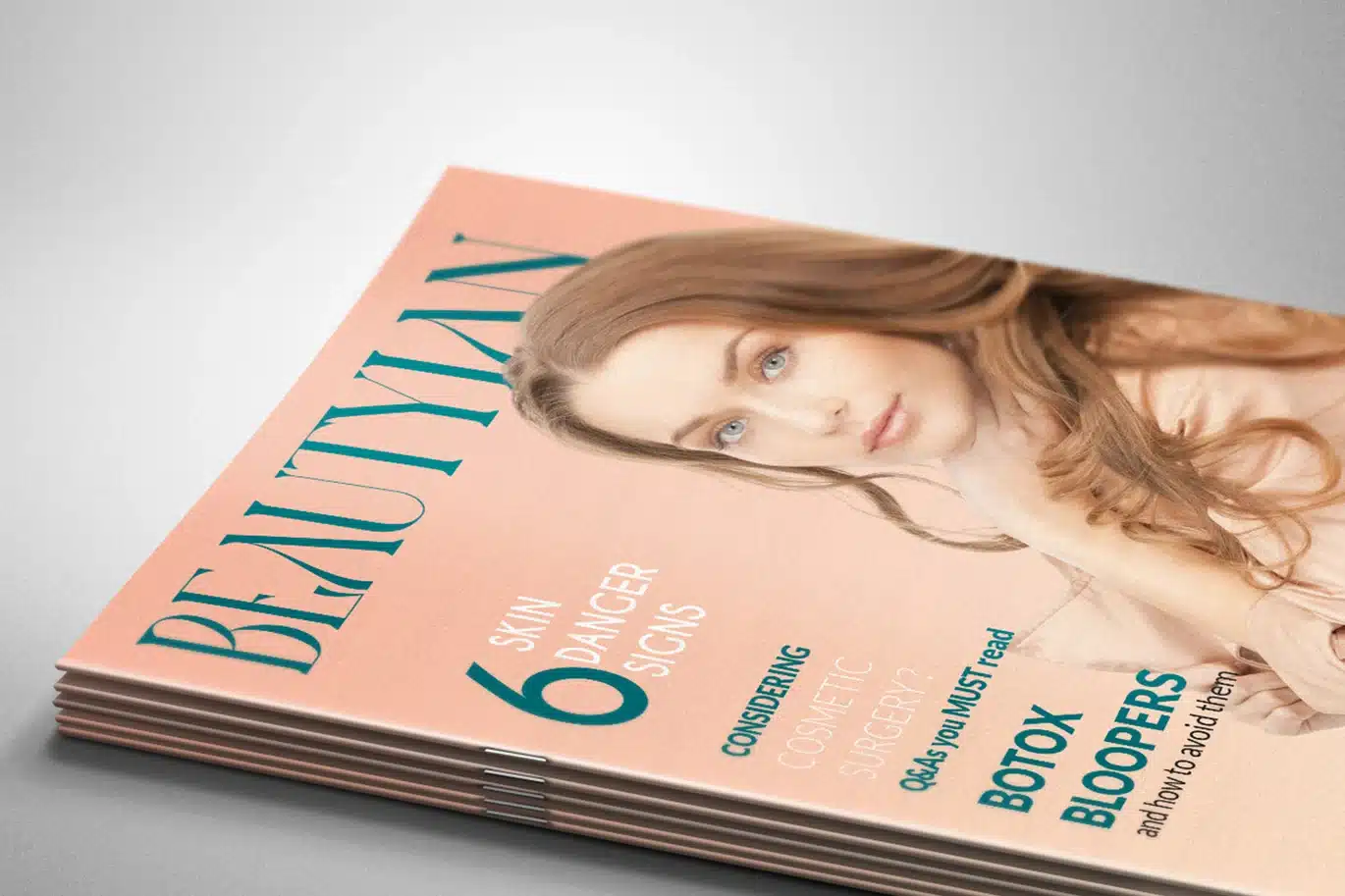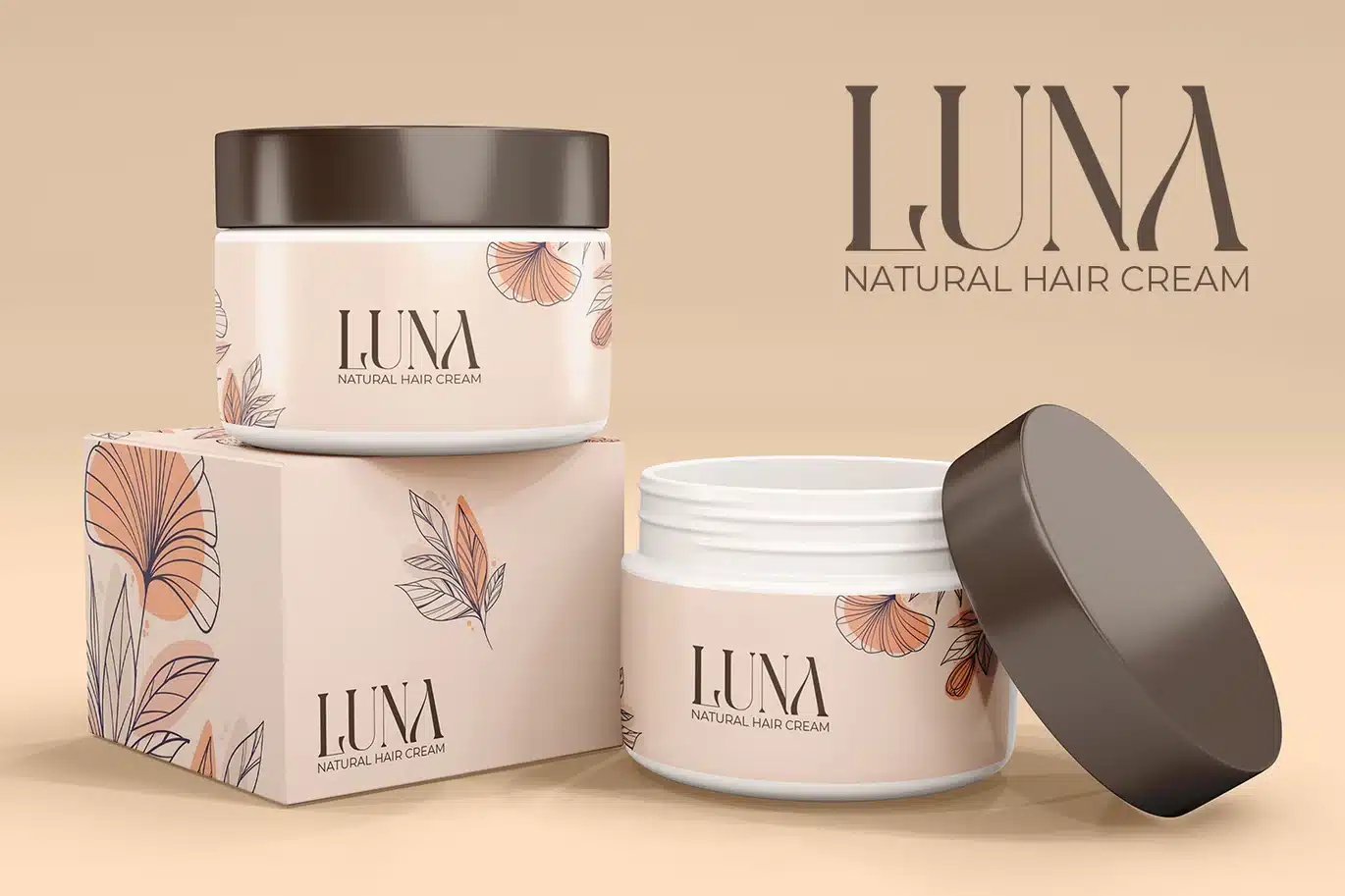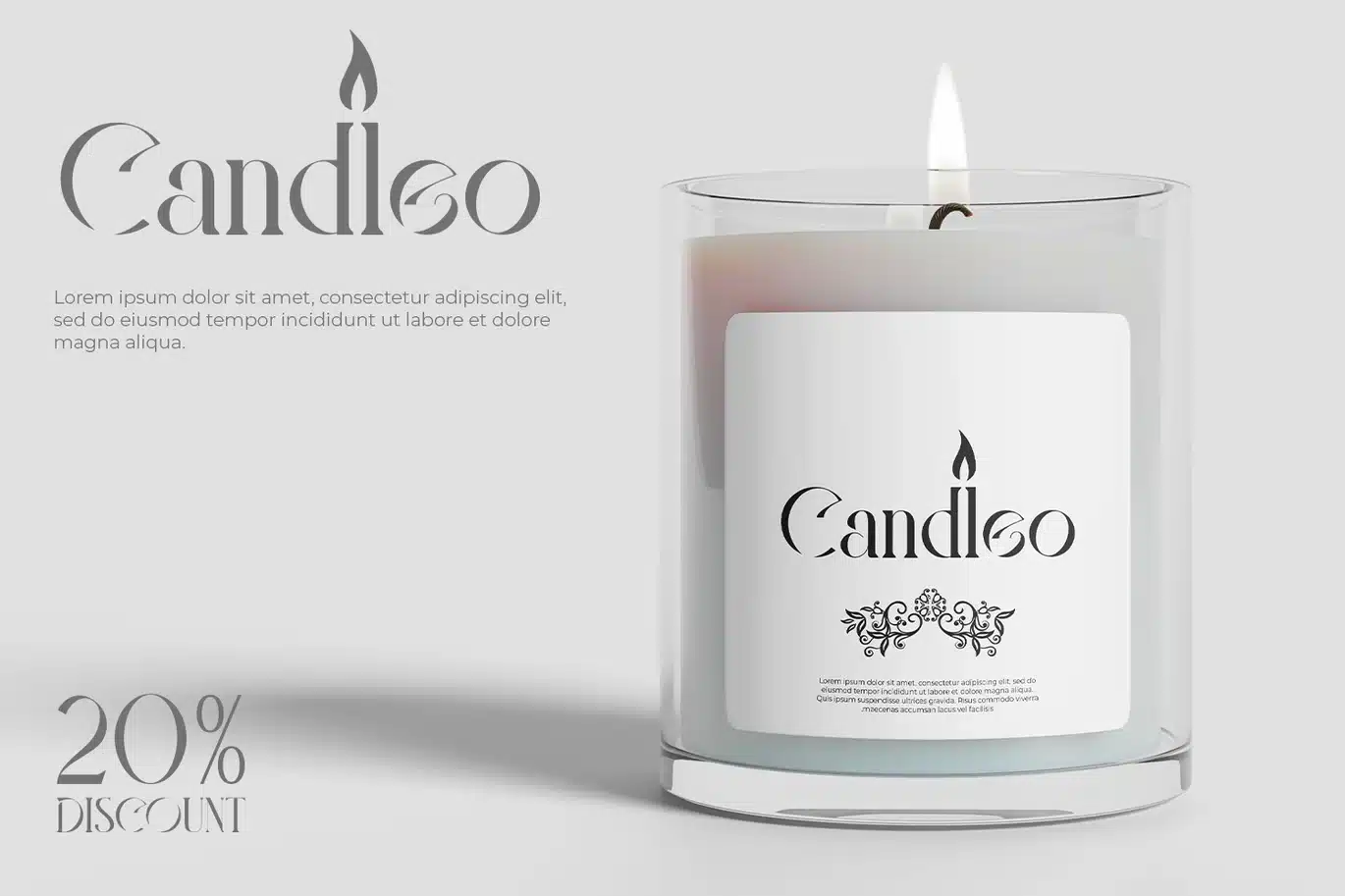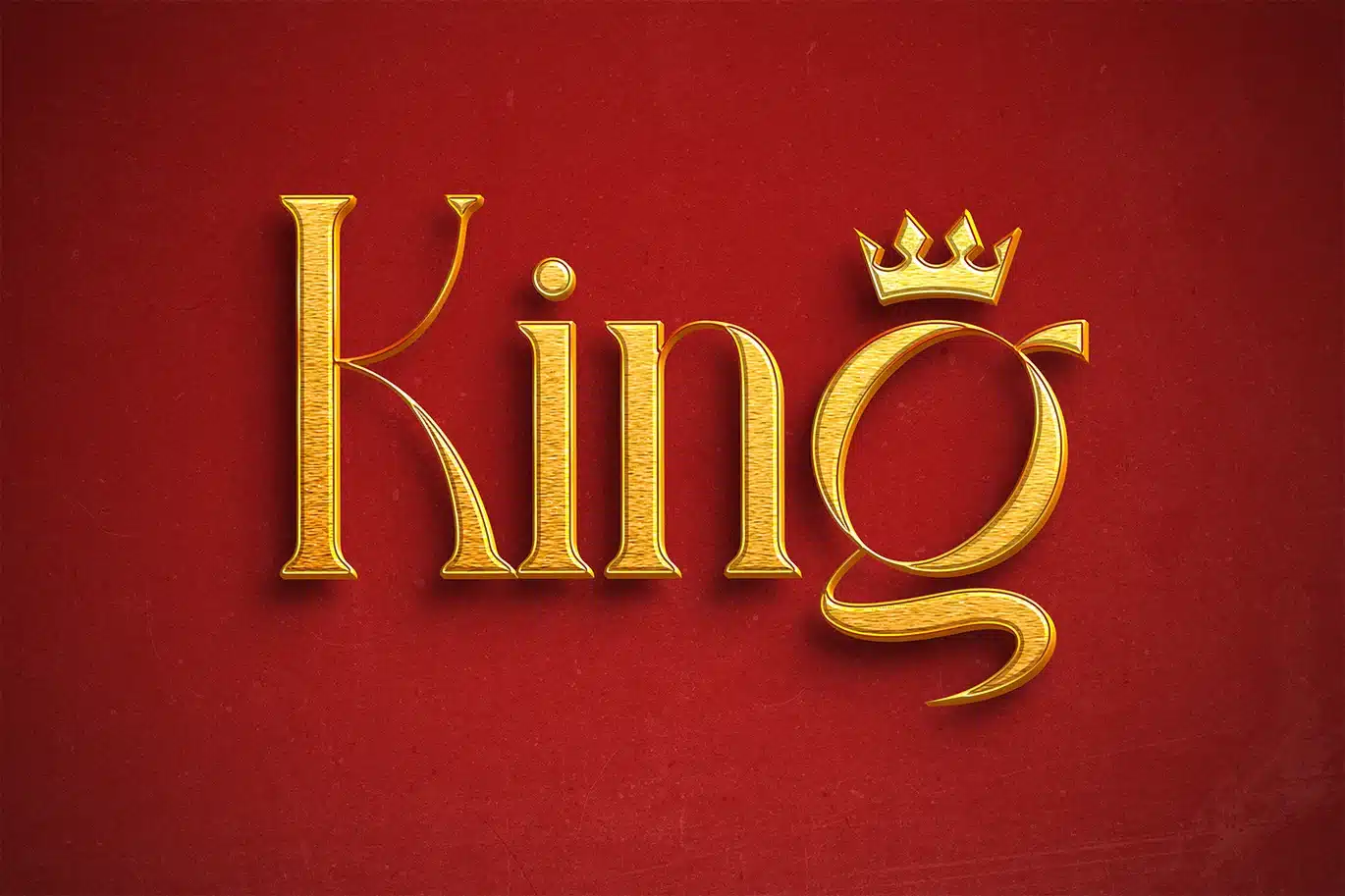
Quark – Stencil Serif Font
Quark - High Contrast Stencil Typeface
Quark is a premium stencil serif font that masterfully blends classic typography with sharp, modern geometric cutouts. This elegant typeface features a high-contrast design between thick and thin strokes, delivering a luxury and sophisticated aesthetic to any professional project.
The precise gaps and architectural details make Quark an ideal choice for premium branding, corporate identities, high-end packaging, logo design, and editorial layouts. Whether you are working on architectural presentations, technology branding, or refined stationery, this exclusive font ensures your typography looks polished and impactful. Quark provides a unique balance of traditional serif roots and contemporary stencil innovation, making it a powerful tool for designers seeking a bold yet sophisticated look.
- Unique letterforms